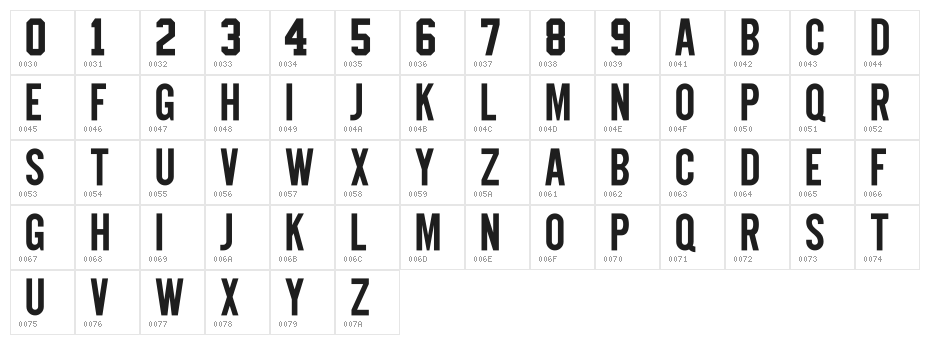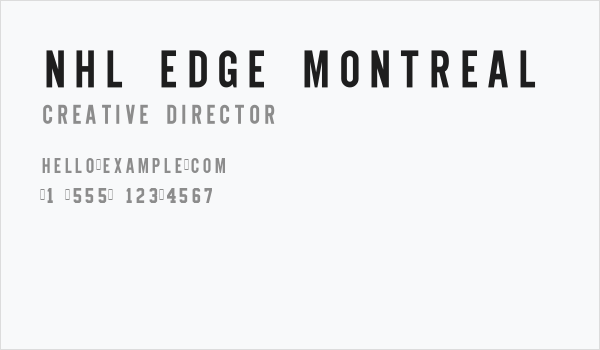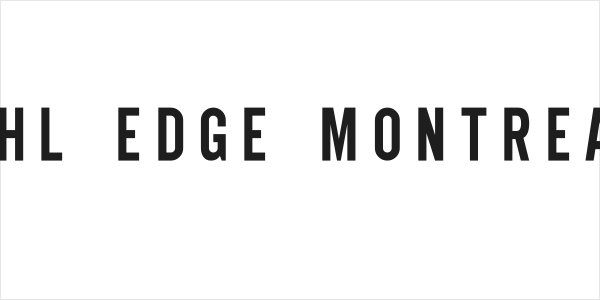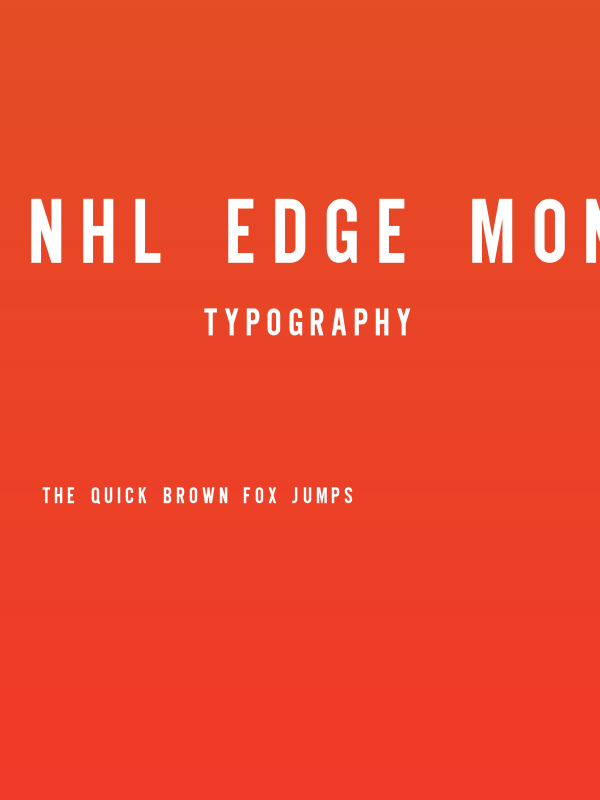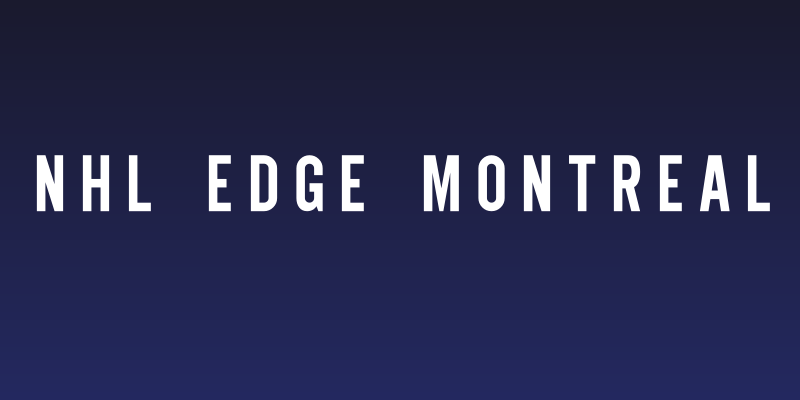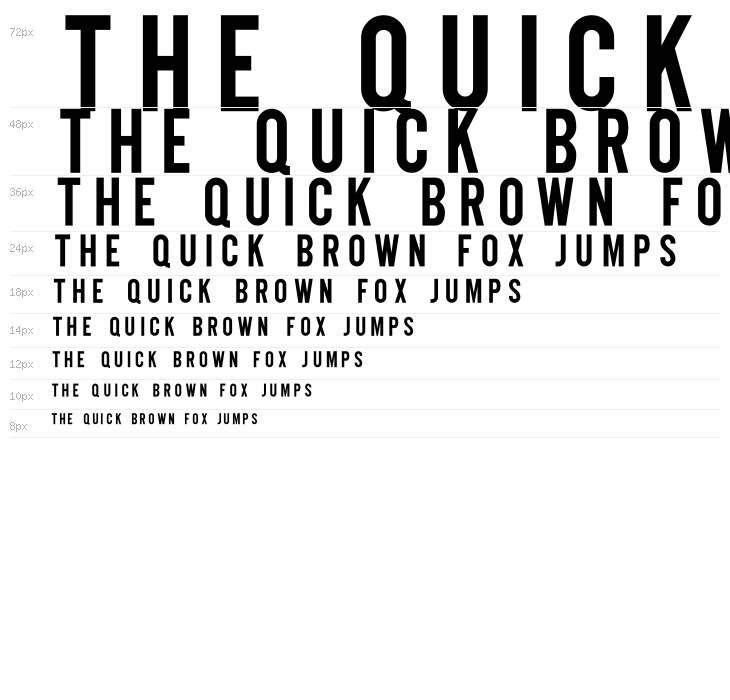
NHL Edge Montreal Font
NHL Edge Montreal Description
This font features a bold and assertive design, characterized by its strong geometric shapes and uniform stroke width. The uppercase letters are tall and narrow, giving a sense of height and authority, while the lowercase letters maintain a consistent style that complements the uppercase. The numerals are equally bold, with a blocky appearance that ensures readability and impact. The overall design is clean and modern, making it suitable for a variety of applications where a strong visual presence is required.